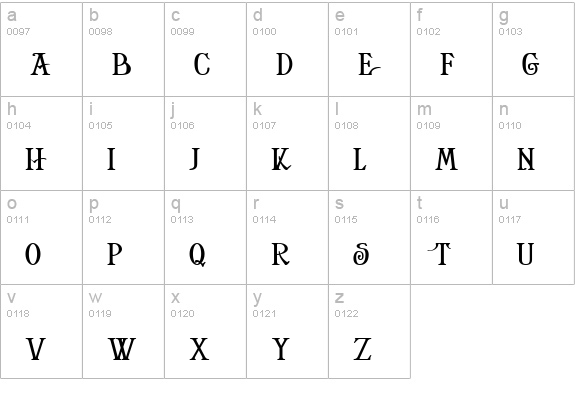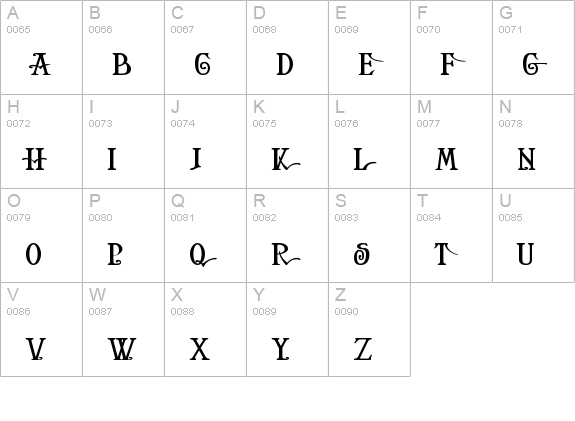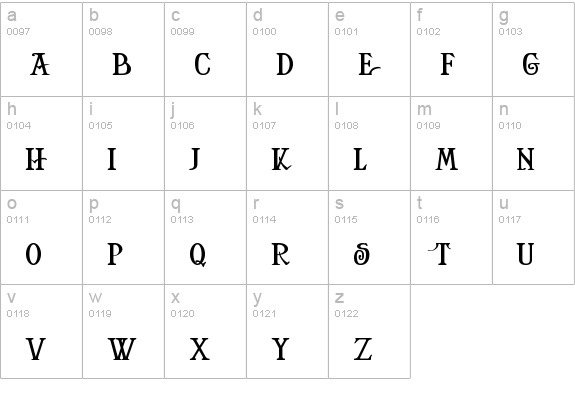
Helena-Squat Font Details
Introducing Helena-Squat, a beautifully crafted font that exudes elegance and sophistication. This typeface is perfect for those looking to add a touch of refined grace to their designs. With its unique and stylish letterforms, Helena-Squat captures attention and leaves a lasting impression. What sets Helena-Squat apart is not only its remarkable aesthetics but also its accessibility. This font is available to everyone, completely free of charge. Whether you are a professional designer or a casual enthusiast, you can easily incorporate Helena-Squat into your projects without any restrictions. Thanks to its versatility, Helena-Squat can be used for a wide range of design purposes. From logos and branding to invitations and editorial layouts, this font adapts effortlessly to any context, bringing a sense of timeless beauty to every piece. To access this exceptional font, simply visit FontsMarket.com. There, you can freely download Helena-Squat and explore the vast library of other high-quality fonts available. Don't miss out on the opportunity to elevate your designs with this captivating typeface. Download Helena-Squat today and experience the freedom of creative expression.